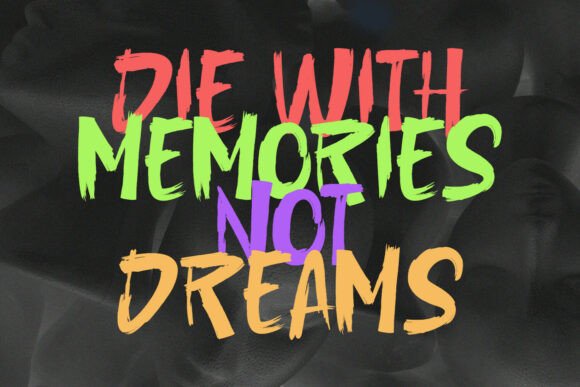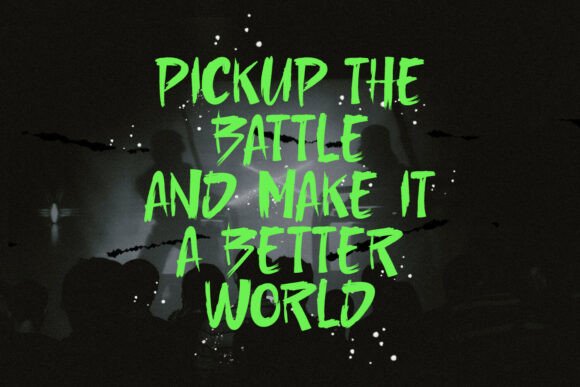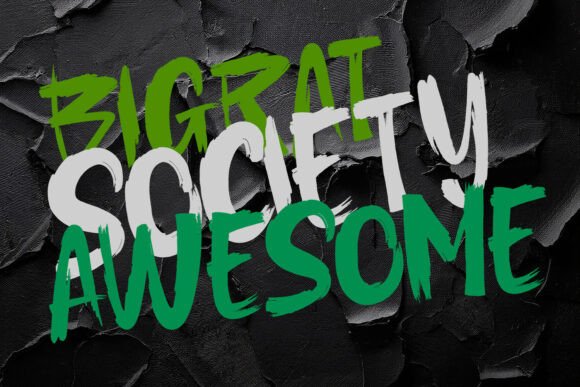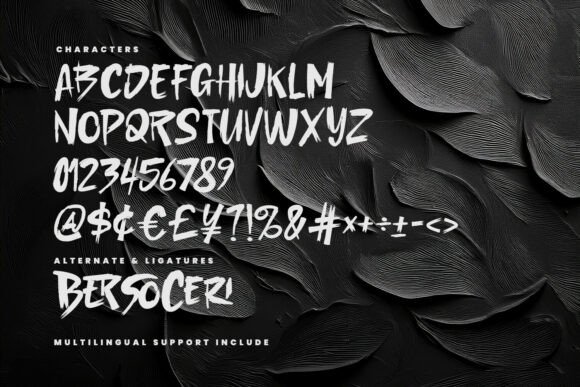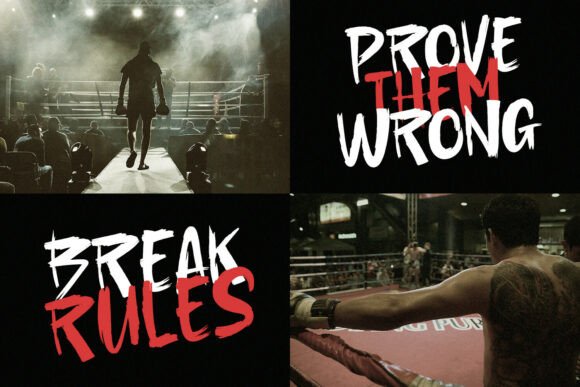
Introduction to Ceris Berison Font
Ceris Berison is a fiercely bold and dynamic handbrush font designed to make an instant, unforgettable impact.
Crafted with a confident, raw brush stroke, this typeface embodies energy, movement, and an unapologetic attitude It’s perfect for designers who need a font that shouts, not whispers.